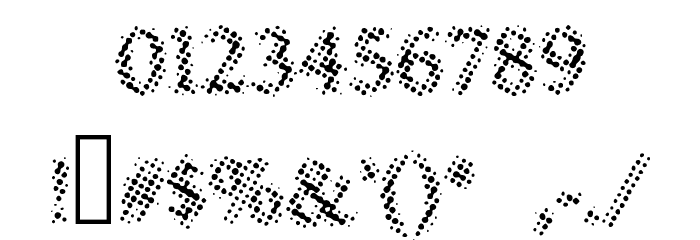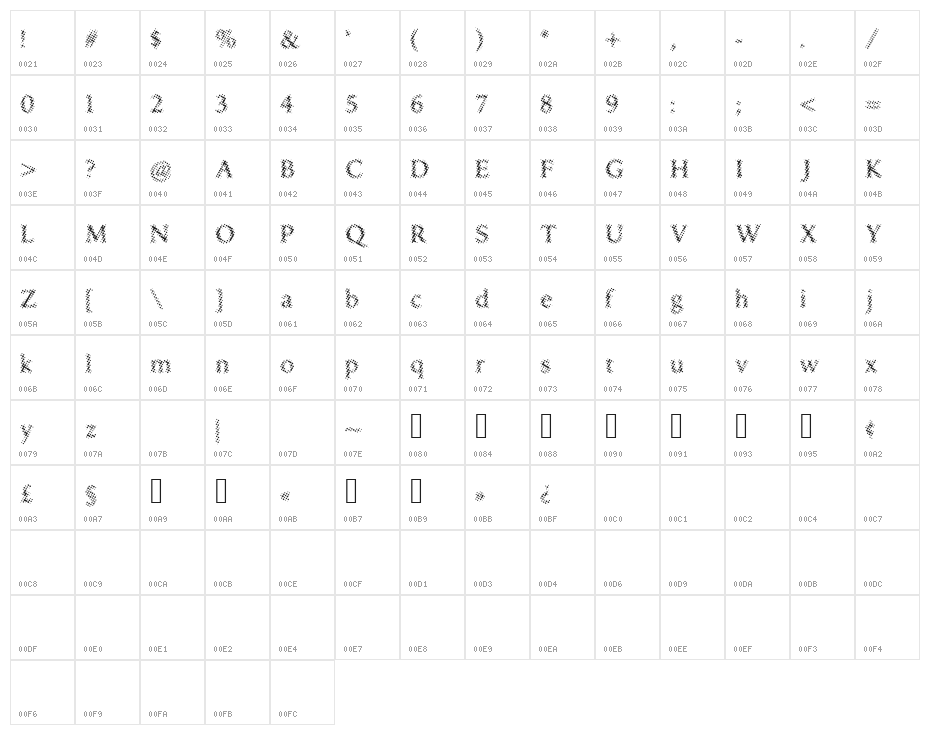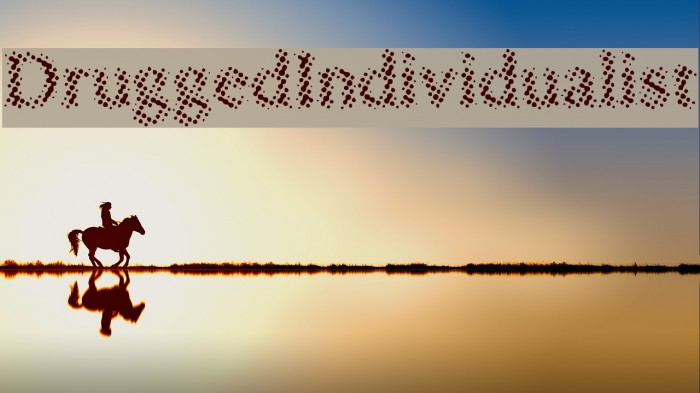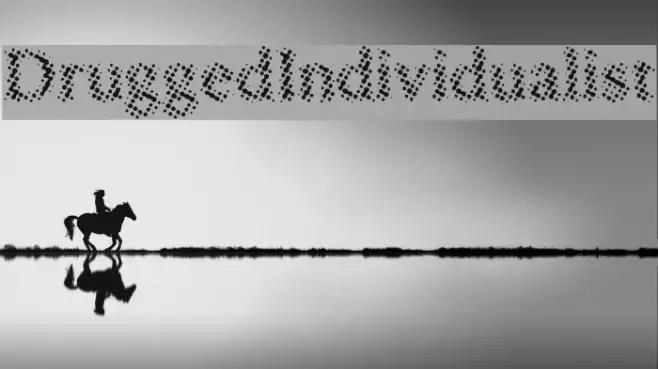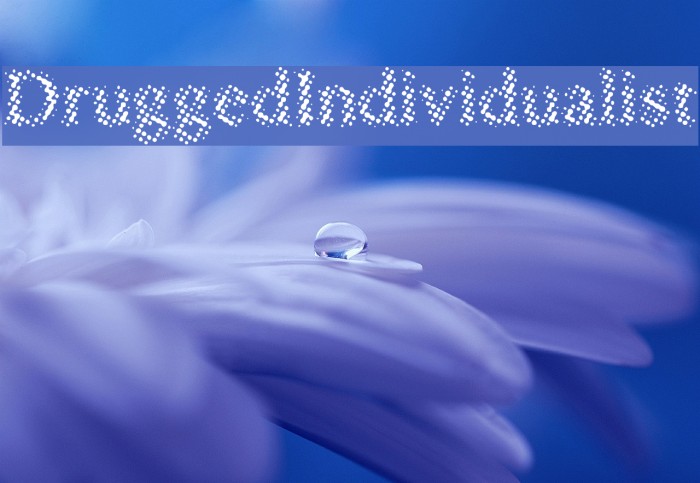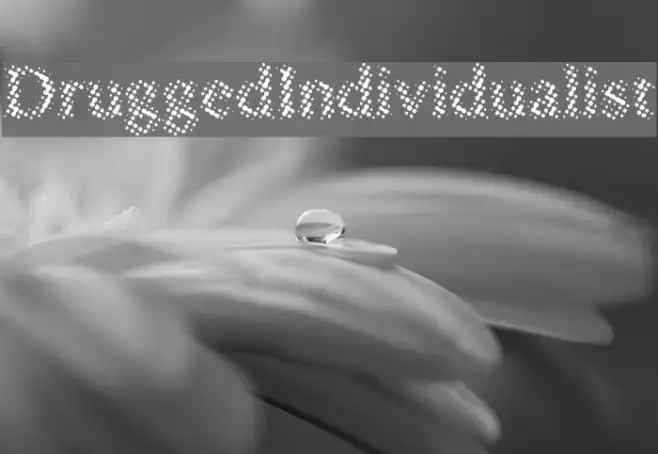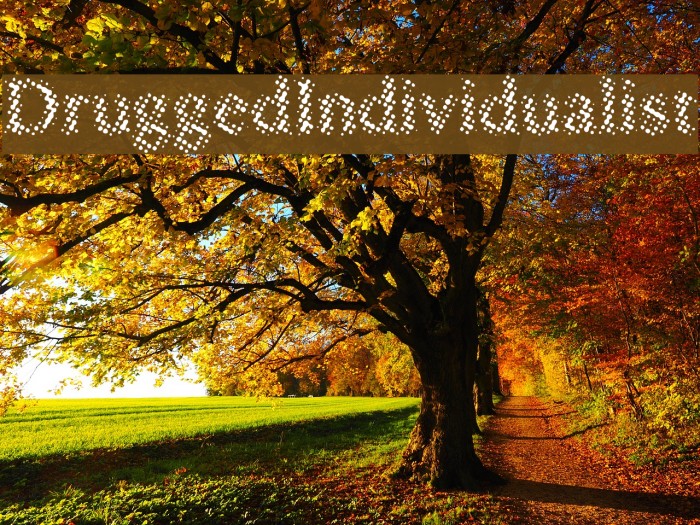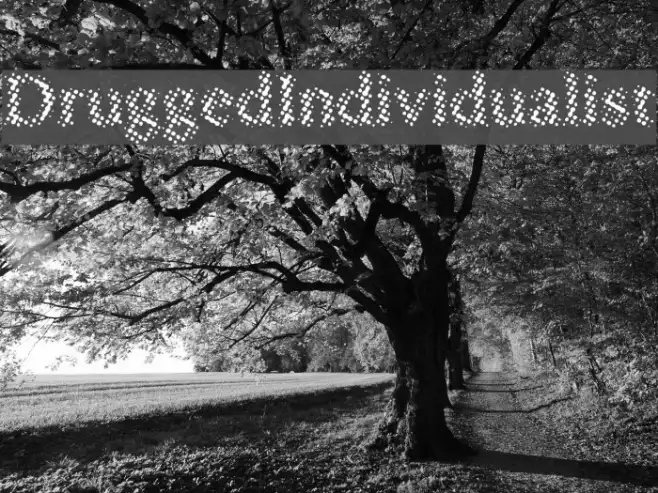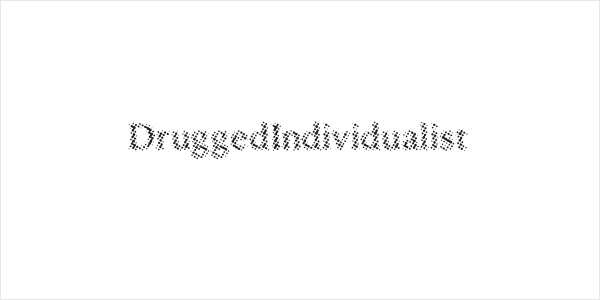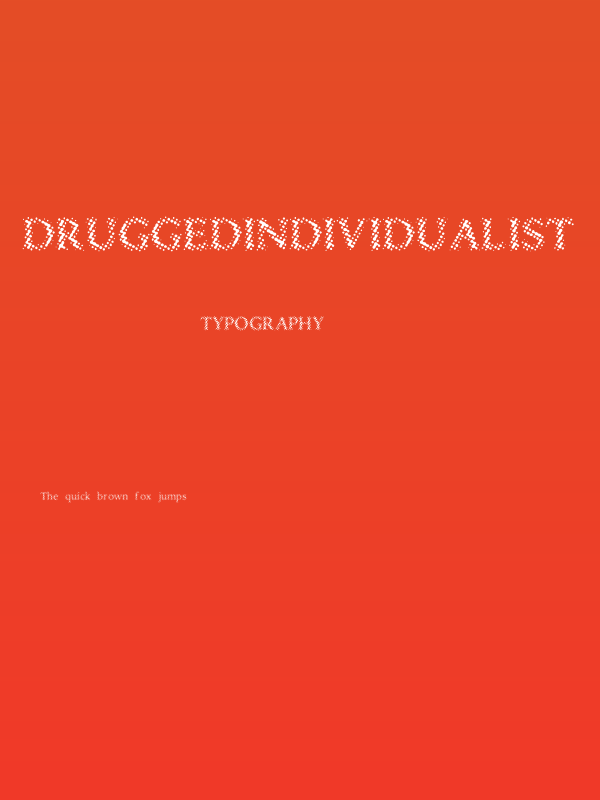
DruggedIndividualist Font
DruggedIndividualist Description
This font features a unique dotted pattern that creates a visually striking effect. Each character is composed of evenly spaced dots, giving it a textured and dynamic appearance. The font maintains a consistent slant, suggesting a cursive or italic style, which adds a sense of motion and fluidity. The uppercase and lowercase letters are well-proportioned, with a slight emphasis on the curves and loops, enhancing its decorative appeal. Numbers and special characters are designed with the same dotted style, ensuring uniformity across all elements. The overall design is both modern and playful, making it suitable for creative and artistic projects.
| Use Case | Headlines, Logos, Artistic projects |
| Proposed Projects | Ideal for creative projects such as posters, invitations, and branding materials where a unique and artistic touch is desired. |